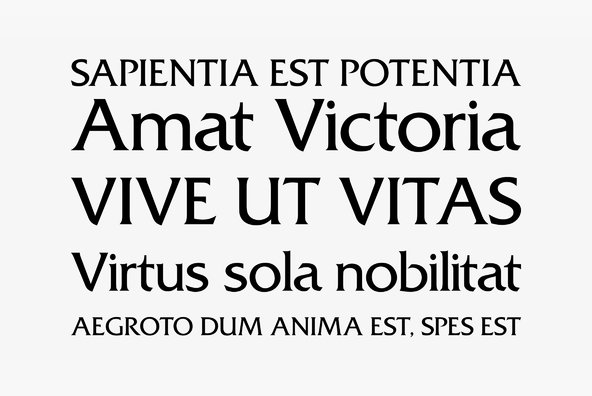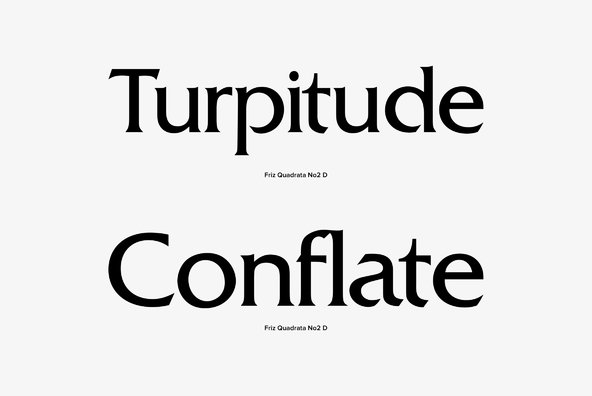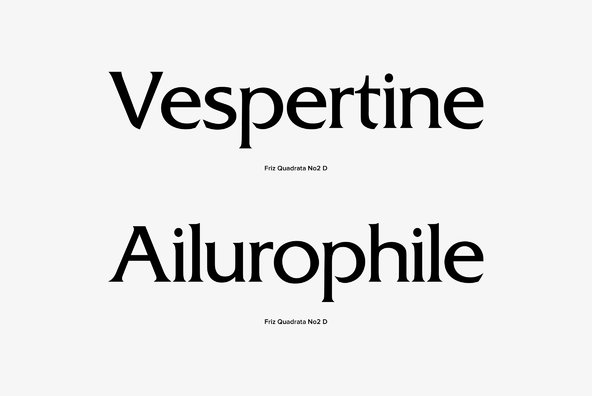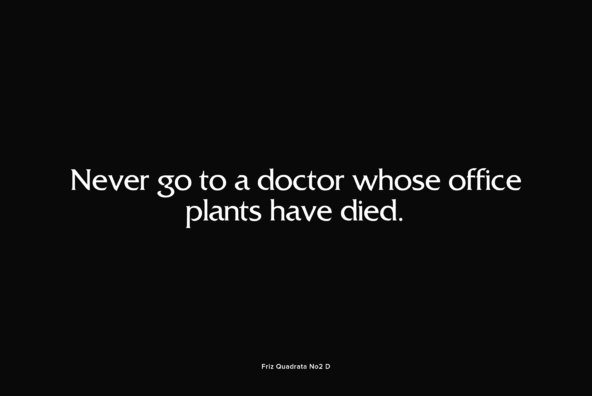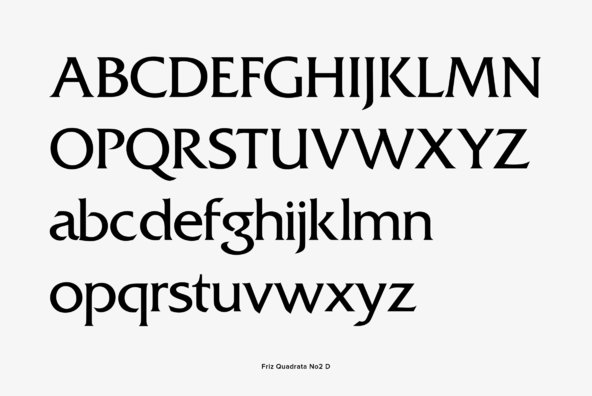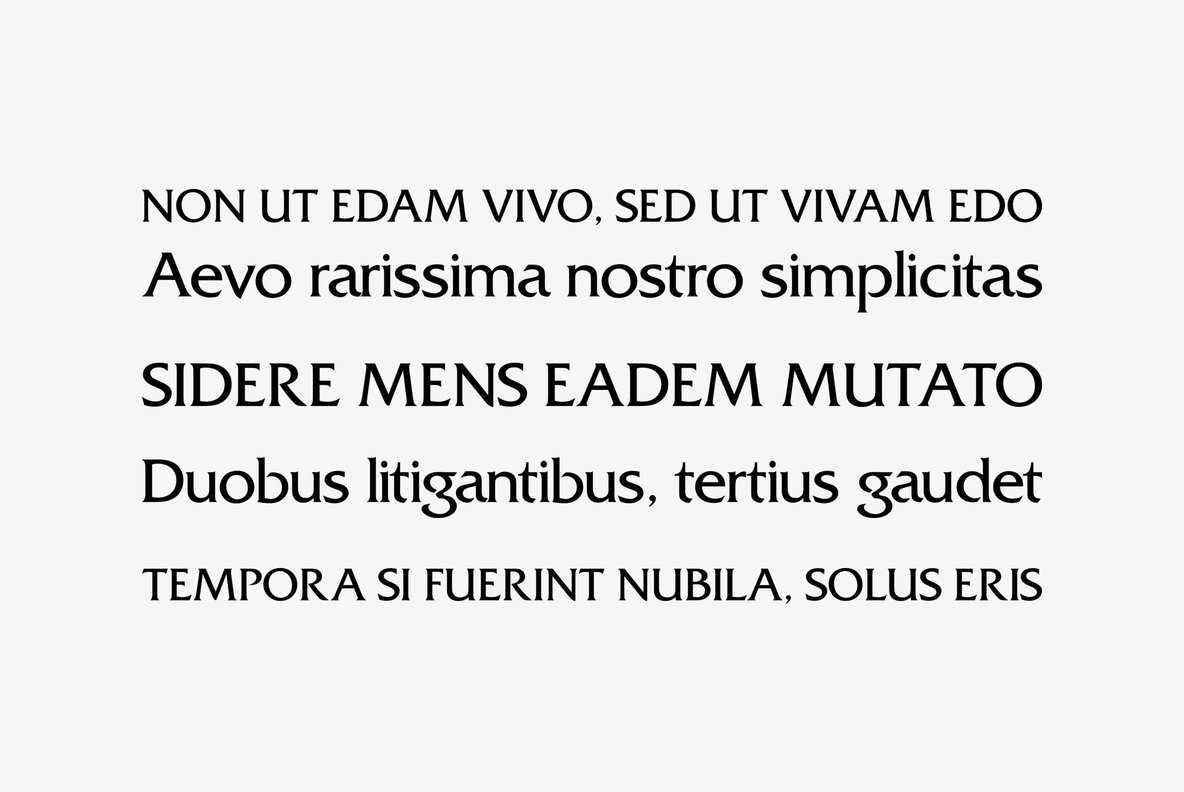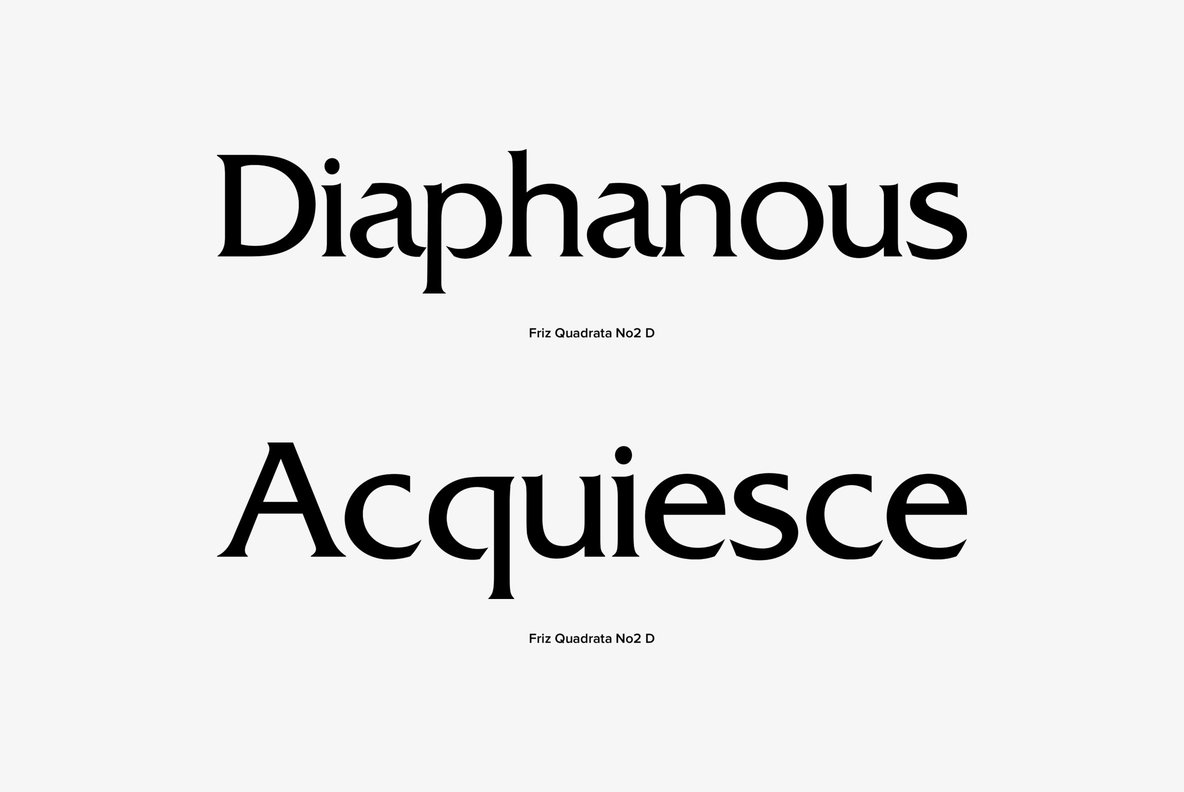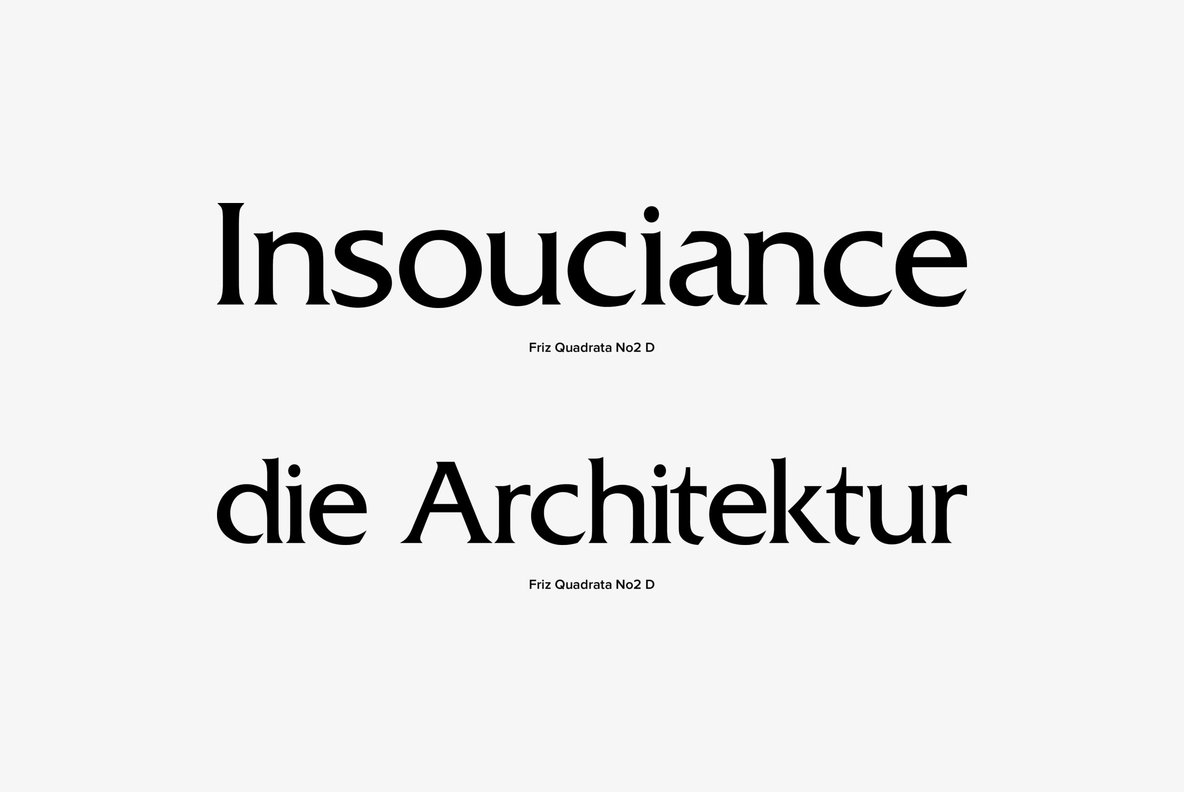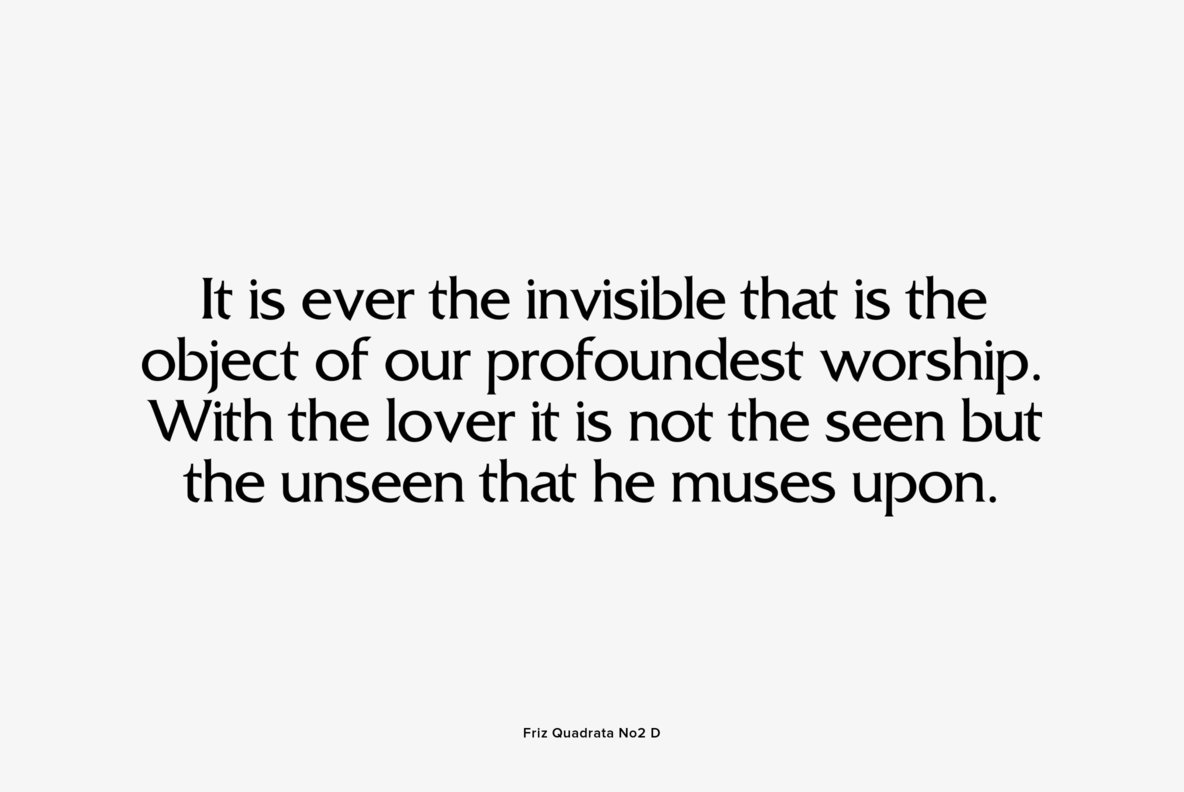
Friz Quadrata
Designed by URW Studio (Ernst Friz) in 1994, Friz Quadrata is a sharp serif font design. Contains language support for West, East, Turkish, Baltic, and Romanian.